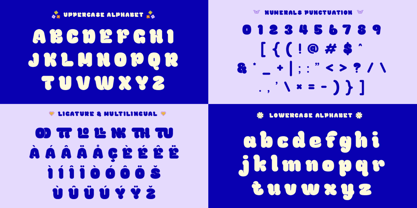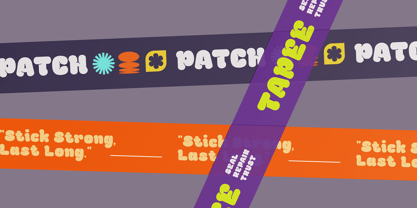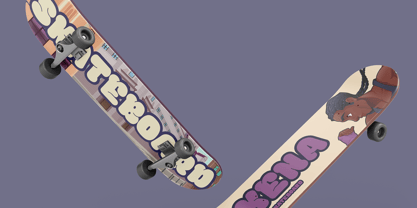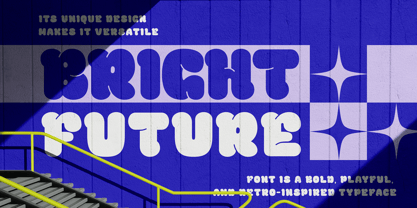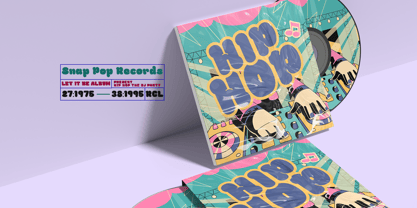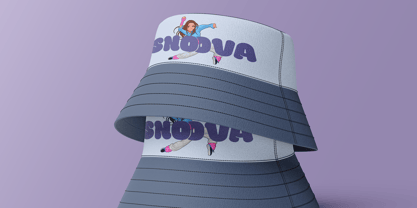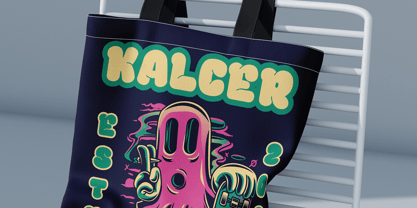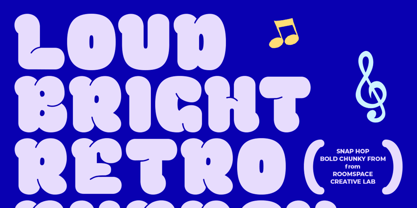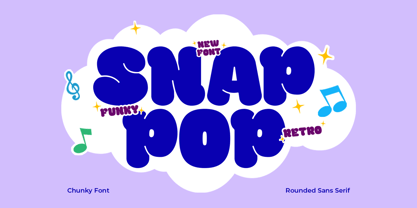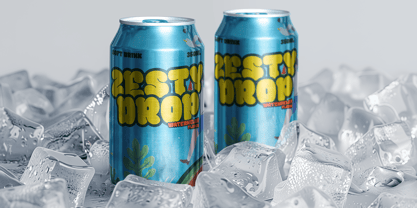
Snap Pop
Die Schriftfamilie Snap Pop wurde von Bakhrudin Ja'far entworfen und von Jafar07 veröffentlicht. Snap Pop enthält 3 Stile und Familienpaketoptionen. Mehr über diese Familie
Snap Pop is a chunky and bubbly display font designed to bring fun, color, and cheerful personality into any project. With its rounded shapes, thick curves, and cartoon-inspired style, Snap Pop instantly adds a lively, joyful vibe that feels perfect for playful visuals. This font is great for kids’ designs, party themes, stickers, posters, product packaging, colorful branding, and anything that needs a bold pop of character. Snap Pop’s friendly look makes it easy to read while staying expressive and full of charm. Whether you're creating cute merch, social media graphics, fun titles, or vibrant event materials, Snap Pop delivers a soft and delightful feel that stands out effortlessly.